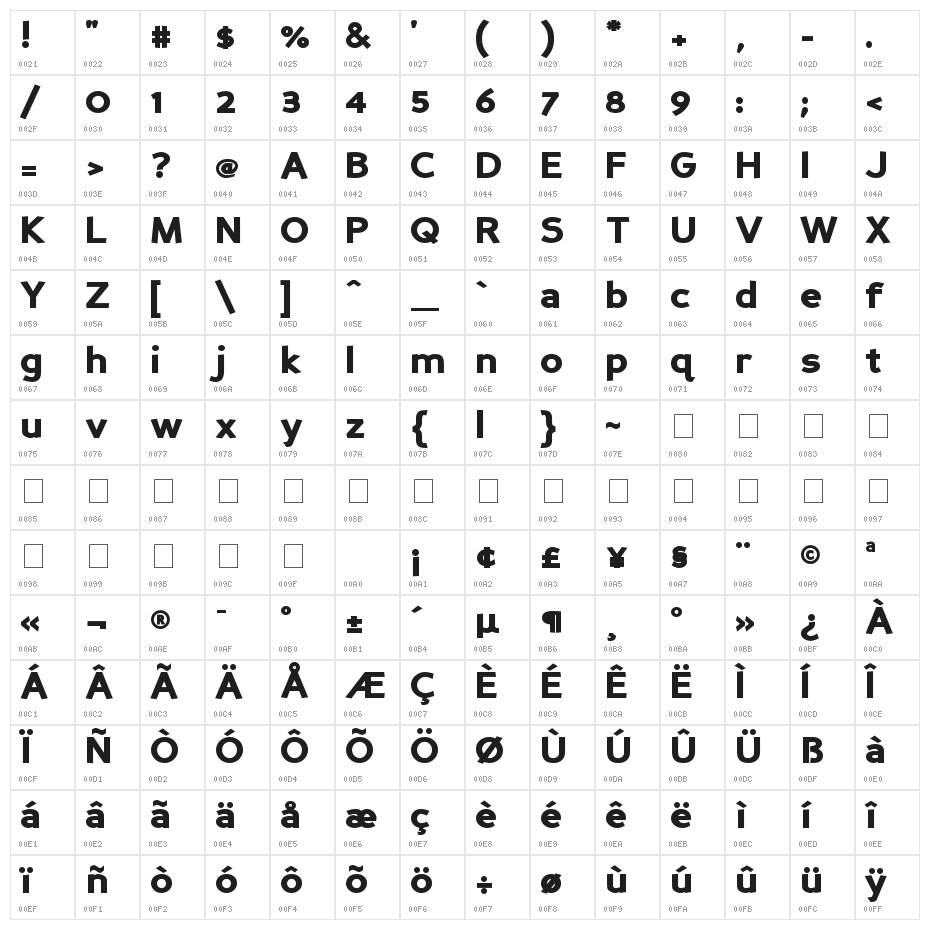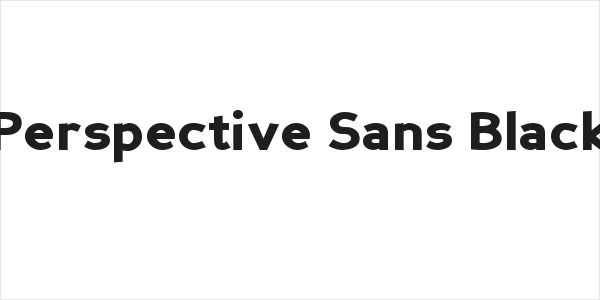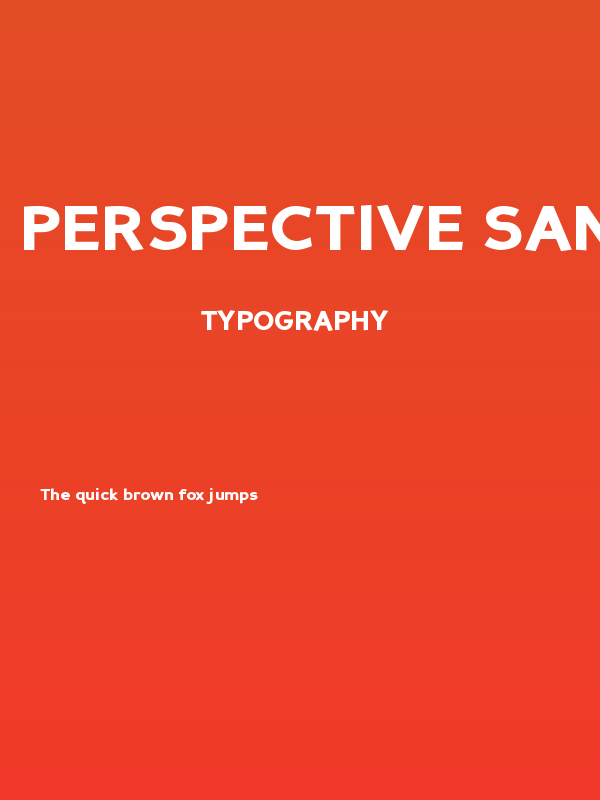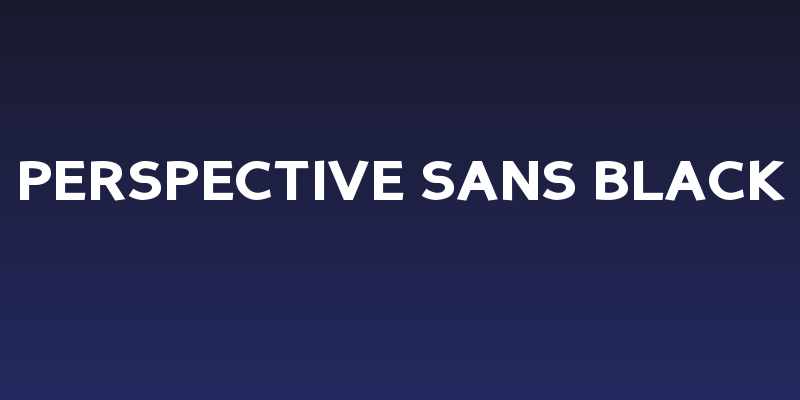
Perspective Sans Black Font
Perspective Sans Black Description
This font features a bold and modern sans-serif style with clean, geometric lines. The characters are well-balanced with a uniform stroke width, giving it a strong and assertive appearance. The uppercase letters are slightly wider, providing a sense of stability and confidence. The lowercase letters maintain a consistent height, contributing to a harmonious and cohesive look. The numerals are clear and easy to read, making them suitable for various applications. The special characters are designed with the same boldness, ensuring they stand out without overpowering the text. Overall, this font exudes a contemporary and professional vibe, making it versatile for different design needs.
| Proposed Projects | Ideal for branding, advertising, headlines, and digital media projects. |